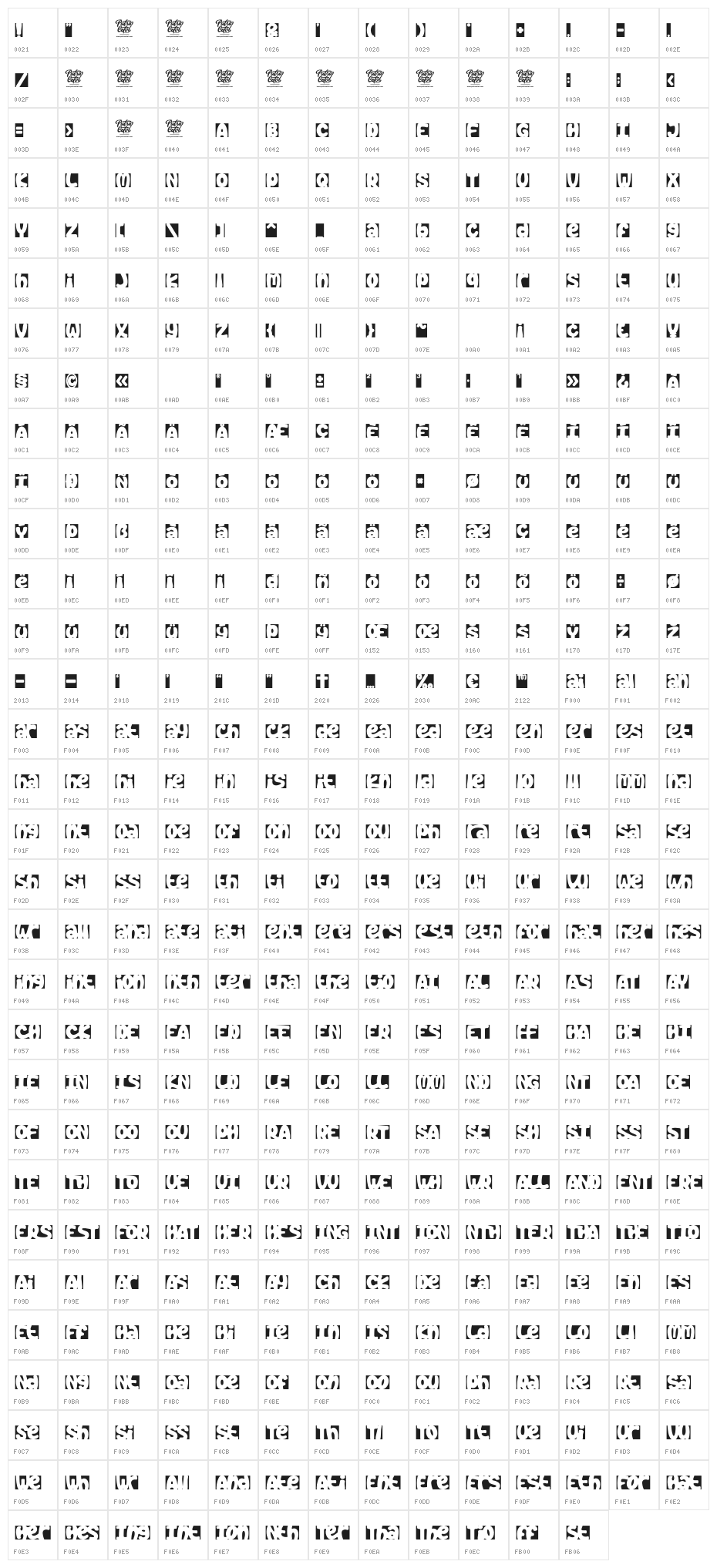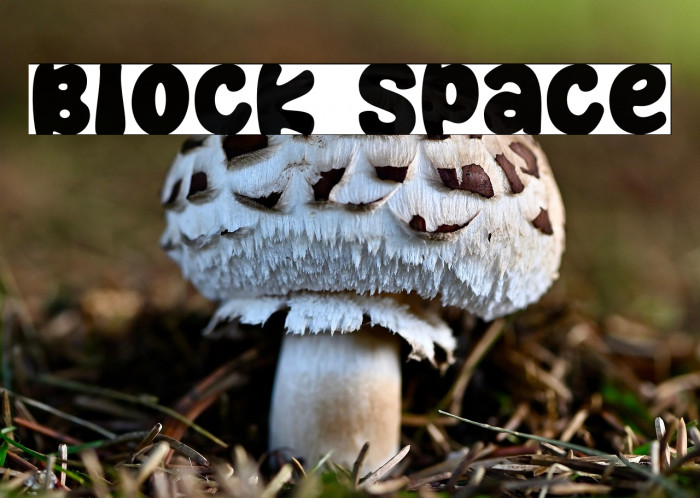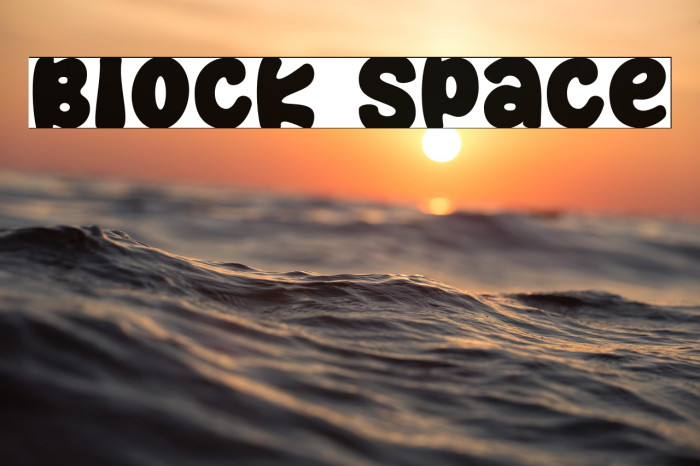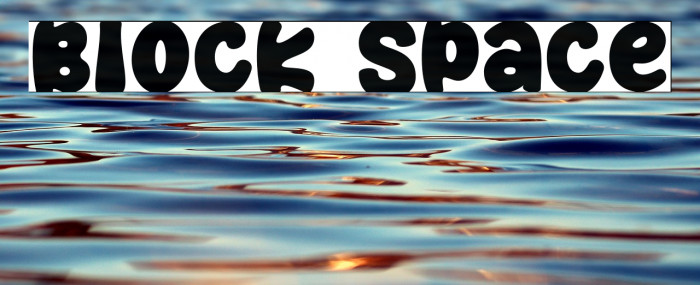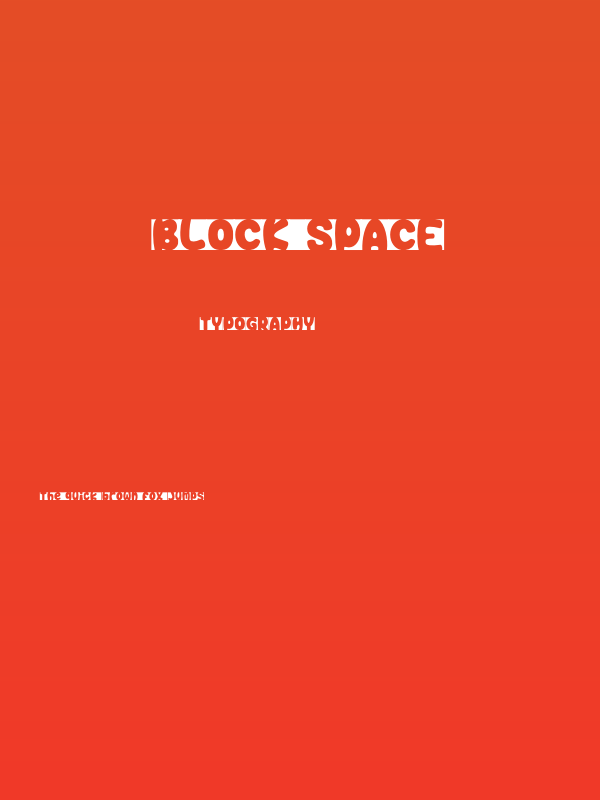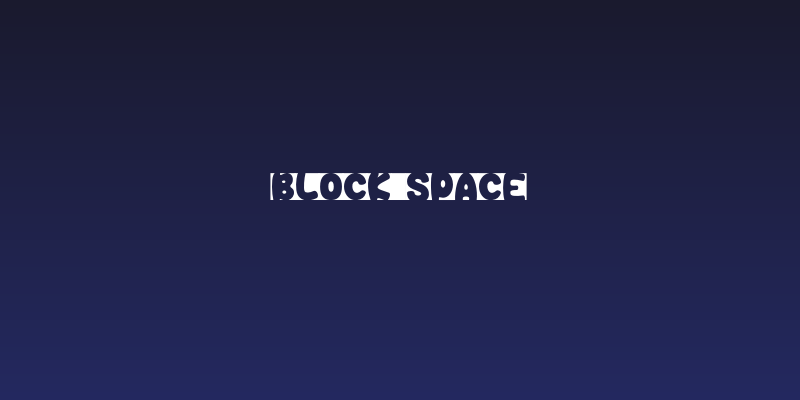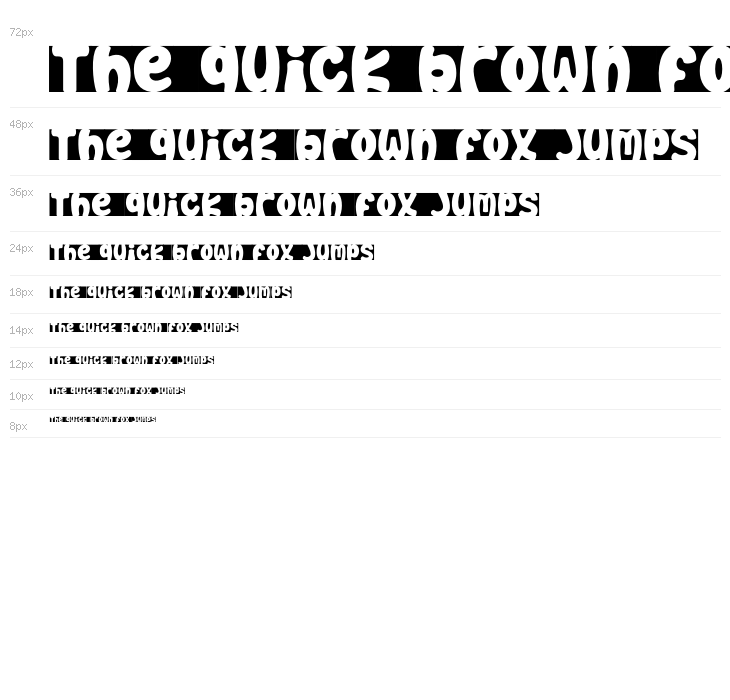
Block Space Font
Block Space Description
This font features a bold and playful design with a unique blocky appearance. Each character is crafted with a distinct, chunky style that incorporates negative space creatively, making it stand out. The uppercase and lowercase letters maintain a consistent width, giving the font a cohesive look. The numbers and special characters follow the same design principles, ensuring uniformity across all glyphs. The font's boldness and decorative elements make it ideal for eye-catching designs. Its playful nature is perfect for projects that require a fun and engaging visual element.
Overall StylePlayful, Modern
Use CaseHeadlines, Logos
Proposed ProjectsIdeal for posters, logos, children's books, and any design needing a fun, bold statement.